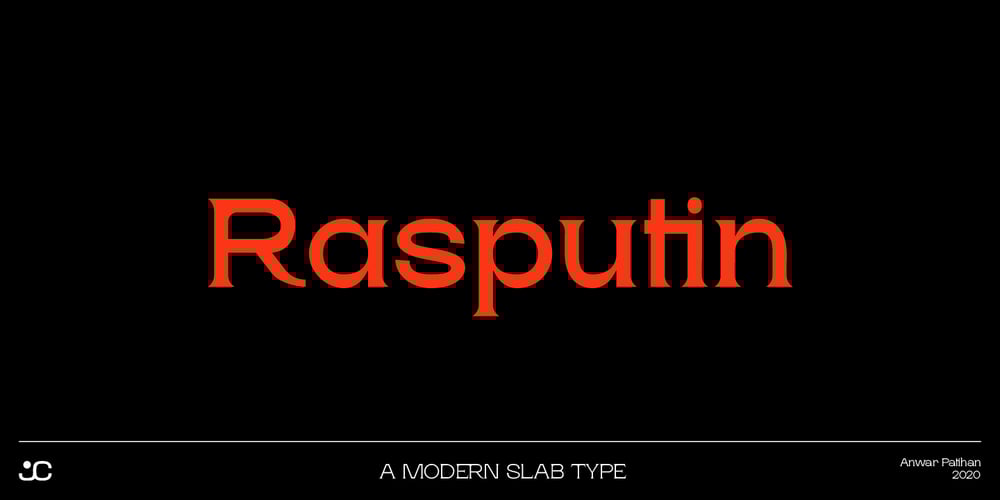
Rasputin
Rasputin font
Rasputin Font Family was designed by Anwar Patihan and published by Jehoo Creative. Rasputin contains 4 styles and family package options. Rasputin is a sharp, curvy and versatile modern slab serif typeface with 4 weights. These are complemented by unique discretionary ligatures that pay attention to detail to make this font stand out and stand out in all its shapes and weights. Its sharp uniqueness, for example in the letter “A R K” provides a great personality type in the title and body text while maintaining optimized readability. Characters that are well-suited for a wide variety of applications from editorial design to branding, advertising, publicity and digital.